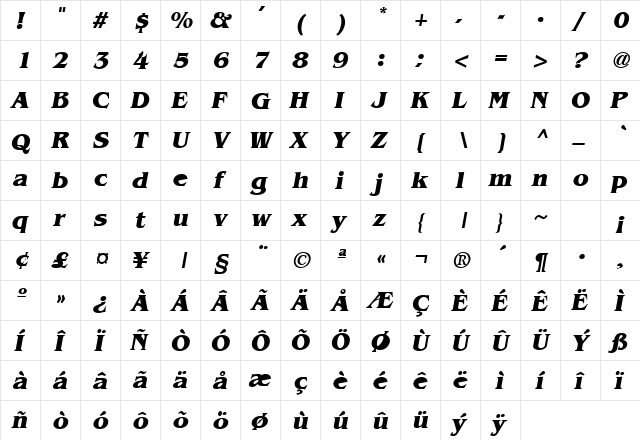
Benquad Bold-Oblique
Design Context for Benquad Typeface
Benquad is a composed and adaptable typeface that performs quietly and consistently across a wide range of design contexts. Its italic angle brings a sense of urgency and motion to the letterforms. The heavy weight commands attention and anchors typographic hierarchies.
Pro Tip: Use Benquad for emphasis, pull quotes, and subheadings where its slanted energy can add rhythm to the layout.